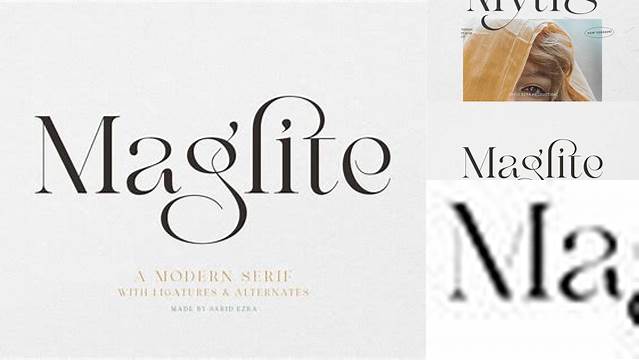
Hey everyone! Today, we're diving into the awesome world of the Maglite font, a modern ligature serif font that's been making waves. If you're a designer, a font enthusiast, or just someone who appreciates a good-looking typeface, you're in for a treat. We'll explore where to find the Maglite font free download, what makes it special, and how you can use it to spice up your projects. Get ready to unleash your creativity!
1. What Exactly is the Maglite Font?
Alright, let's start with the basics. The Maglite font is classified as a modern ligature serif font. But what does that even mean? Let's break it down. "Serif" fonts are those with little strokes or "feet" at the end of each letter, giving them a classic and elegant look. Think of fonts like Times New Roman or Garamond. They've got those little serifs, right? Now, "ligature" refers to the way certain letter combinations are designed to connect, creating a smoother, more visually appealing flow. In the case of Maglite, these ligatures are a key feature, adding a unique touch to the font. It's modern because it has clean lines and a contemporary feel, perfect for both digital and print designs. This combination of features makes Maglite stand out from the crowd, offering a blend of classic and modern aesthetics. It provides designers with a tool that's versatile enough for headlines, body text, and even branding projects. The attention to detail in the ligatures enhances readability, making the text more engaging for the reader. The carefully crafted letterforms give Maglite a polished look that works well across various design applications. Whether you're working on a website, a poster, or a logo, this font can add a touch of sophistication.
2. Key Features and Characteristics of Maglite Font
Let's get into the nitty-gritty of what makes the Maglite font so special. First off, its modern design is a real eye-catcher. The font features clean lines and a streamlined aesthetic, making it ideal for contemporary projects. The ligatures are a standout element, as mentioned earlier. They smoothly connect certain letter combinations, adding a unique flair and improving readability. The balance between elegance and modernity is another key characteristic. Maglite manages to be both classic and current, making it adaptable to various design styles. Another noteworthy feature is its versatility. This font works well in a variety of contexts, from headlines and titles to body text. Plus, the font often includes a variety of weights and styles. This allows designers to select the perfect version for their particular project. The attention to detail in the letterforms is also important, with careful consideration given to the curves, angles, and overall design of each character. This results in a font that not only looks great but also reads easily.
4. Maglite Font in Graphic Design and Branding
Let's get into how you can use the Maglite font in your graphic design and branding projects. This font is a fantastic choice for creating a modern and stylish look. It works wonders for headlines and titles, adding a touch of sophistication and drawing the reader's eye. The ligatures within the font can give your logo a unique and memorable look, setting your brand apart. When designing for websites, the font's readability is important. This helps keep your audience engaged and makes it easier for them to read content. In branding, consistency is key. Make sure the font is used in all your materials, from your website and social media to print materials and packaging. Maglite is also perfect for creating visually appealing social media graphics. The clean and modern design makes it ideal for quotes, announcements, and promotional materials. The variety of weights and styles available in Maglite allows you to create a cohesive visual identity for your brand. Its versatility means it can be used in different contexts, whether it's a minimalistic design or a more elaborate layout. The font's unique features can help you create a brand that stands out, and the combination of modern aesthetics and the classic look of the serifs makes it a versatile tool.
5. Using Maglite Font for Website Design
Let's discuss how to use the Maglite font effectively in website design. Maglite's modern aesthetic and readability make it a great choice for website headlines, body text, and other text elements. Using the font for headlines will grab visitors' attention and set the tone for your website's overall design. For body text, make sure you select a weight that's easy on the eyes and offers a good balance between readability and style. Consider the size of the text and the spacing, so visitors can easily read your content. You can also use Maglite for call-to-action buttons, navigation menus, and other key elements. The font’s versatility allows you to create a cohesive and visually appealing website. Make sure your website is mobile-friendly. Choose font sizes that are easy to read on all devices. Ensure the contrast between the font color and the background is high enough for easy readability. Experiment with different weights and styles to find the perfect fit for your design. Remember, the goal is to create a user-friendly website that's both visually appealing and easy to navigate. By incorporating Maglite into your website design, you can create a polished and professional online presence. The modern design will contribute to a contemporary feel.
6. Advantages and Disadvantages of Using Maglite Font
Alright, let's weigh the pros and cons of using the Maglite font. On the plus side, this font looks fantastic. The modern design gives your projects a polished and contemporary vibe. Maglite's ligatures and unique letterforms add personality and visual interest, making it stand out from generic fonts. The font is highly versatile. It can be used for various design projects, including websites, branding materials, and print media. The font’s readability is also a major advantage. Despite its modern look, it remains easy to read, making it suitable for both headlines and body text. However, there are some potential disadvantages. The ligatures might not always be suitable for every context. They could create readability issues in specific situations, especially when used in small sizes. The font may not be suitable for all design purposes. Certain projects may require a more traditional or specific style. While the font is versatile, it may not perfectly match every brand or design aesthetic. Keep these considerations in mind when using the Maglite font to ensure it aligns with your project goals. Weighing these aspects allows you to make an informed decision on whether this font is right for your design needs.
7. Tips for Pairing Maglite Font with Other Fonts
Let's talk about pairing the Maglite font with other fonts to create stunning designs. When choosing a font to pair with Maglite, consider the overall design and the message you want to convey. A classic pairing is to combine Maglite with a sans-serif font for body text. This combination creates a balance between elegance and readability. For a more playful feel, try pairing Maglite with a handwritten or script font. When choosing a companion font, it's useful to consider the style and contrast. A strong contrast between the fonts can make your design more dynamic, while a more subtle contrast creates a harmonious look. Don't use too many different fonts in your designs. Stick to a maximum of three fonts to maintain a cohesive look. Pay attention to the font size, weight, and style to create a balanced look. Ensure that the paired fonts work well together in terms of their visual characteristics. Experimenting is crucial. Test out different combinations to find the perfect fit. Always consider the purpose of your design. For example, a business website would likely use a different pairing than a creative blog. The key is to select fonts that complement each other and enhance the overall design.
8. Maglite Font for Print Media Design
Let's explore how you can use the Maglite font in print media design. This font is a fantastic choice for various print projects, adding a touch of elegance and modernity. It's perfect for brochures, adding a professional feel and ensuring the readability of important information. For posters and flyers, Maglite makes a statement with its stylish look, grabbing the audience's attention with bold headlines. In magazines and books, you can use Maglite for titles, headings, and even body text, depending on the design needs. The font's readability is a key factor in print. Make sure the text is legible, especially in smaller sizes. The font’s versatility ensures it adapts well to different layouts and designs. When designing, consider the paper and the printing process. The font should maintain its look across different paper types and printing techniques. Test your design before printing. Print a sample to ensure the font looks as expected and the layout is correct. Using Maglite in your print media design will help you create a polished and professional look. The modern and stylish design will enhance the visual appeal of your print materials.
9. The History and Inspiration Behind the Maglite Font
Let's delve into the history and inspiration behind the Maglite font. While details about the exact creation process may vary, we can explore what likely influenced the design of the font. The design is rooted in the modern serif font style, which often takes inspiration from classic typefaces. The designers likely drew inspiration from various sources, including the art deco movement and the Bauhaus design style, which emphasize clean lines and geometric shapes. The font's development probably involved a careful process of creating each letter, paying attention to the curves, angles, and overall aesthetics. The ligatures are a result of a deliberate effort to enhance the flow and visual appeal of the font. The name “Maglite” may have been chosen to evoke a sense of modern design or innovation. It's possible the designers aimed to create a font that was versatile and stylish, suitable for a wide array of design projects. The goal was to blend the traditional charm of serifs with a modern twist. Knowing the history and the potential influences can help you better appreciate and use the Maglite font in your own designs.
30. Case Studies: Successful Projects Using Maglite Font
Let's check out some case studies of successful projects that use the Maglite font. Study websites that feature excellent typography. Identify how the font is used in marketing campaigns. Research branding materials that feature the font. Examine social media posts and designs. Look at how designers use the font to enhance the user experience. Study case studies that apply the font and use the techniques. Use these case studies to create your own projects. Look at the positive results that the font has created. This will help you implement the Maglite font in your work. You can learn from other designers. Get ideas from the best designs, and apply those ideas to your designs. Examining case studies can help you improve your knowledge. Analyzing successful projects will help you utilize the Maglite font effectively. Use these case studies to boost your creative process.